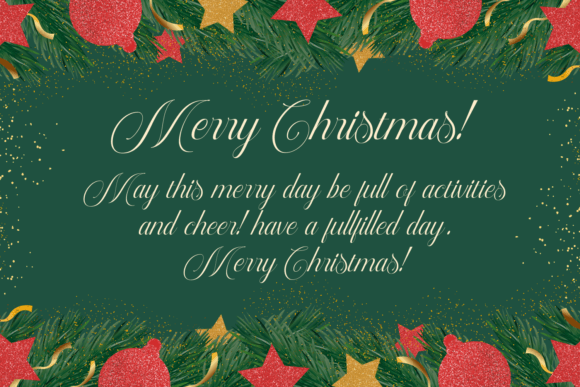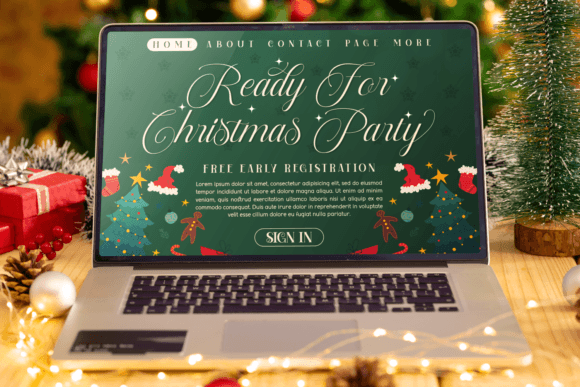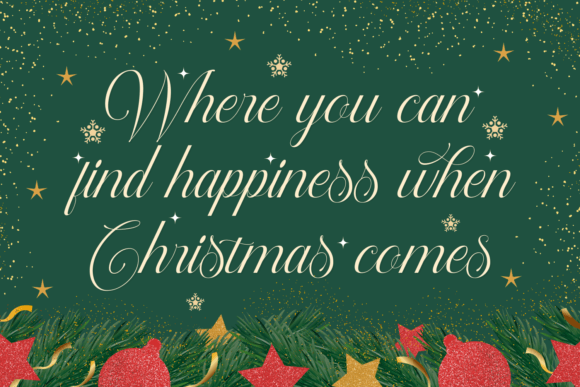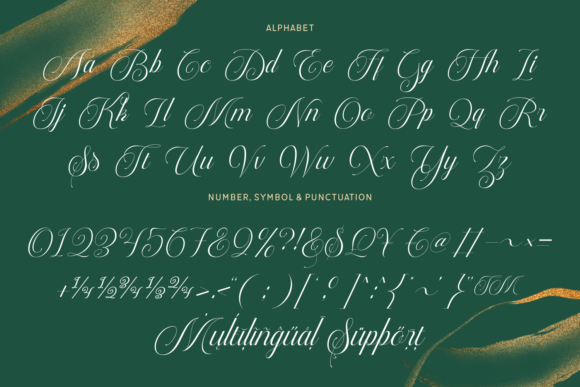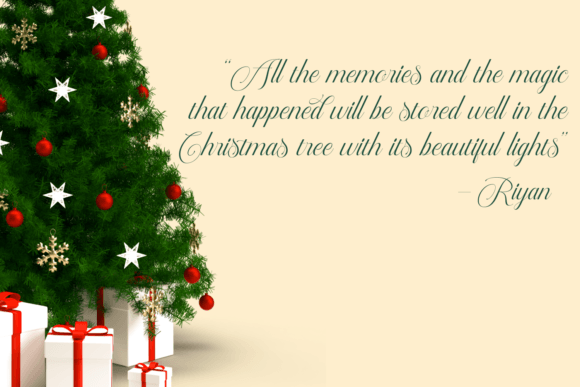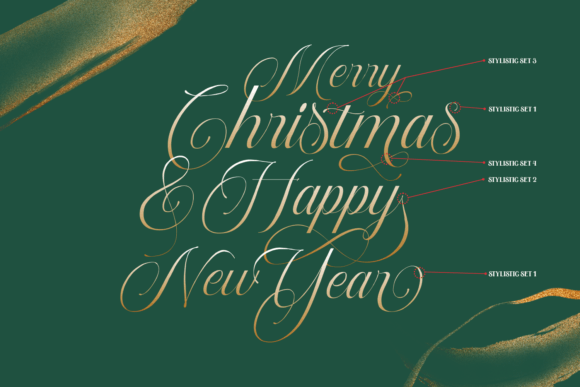
Introduction to Sansta Font
Sansta is a sweet and festive handwritten script font.
Let yourself be inspired by its warmth and charm and use it to create stunning Christmas designs .
Key Features of Sansta Font
Why Choose Sansta Font?
Sansta Font offers exceptional quality and versatility, making it a valuable addition to your design toolkit. Whether you’re creating for personal projects or commercial use, Sansta Font delivers professional results.